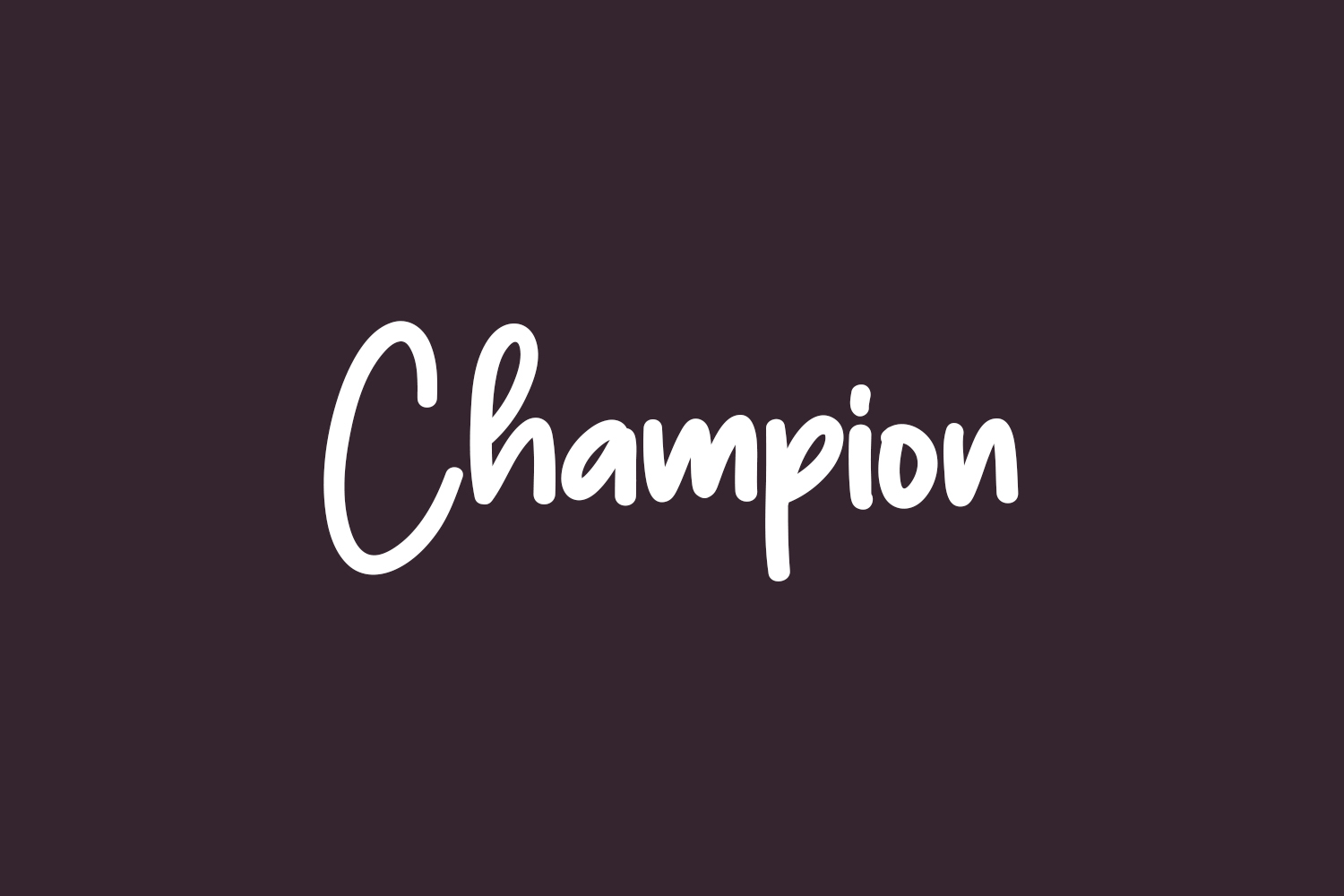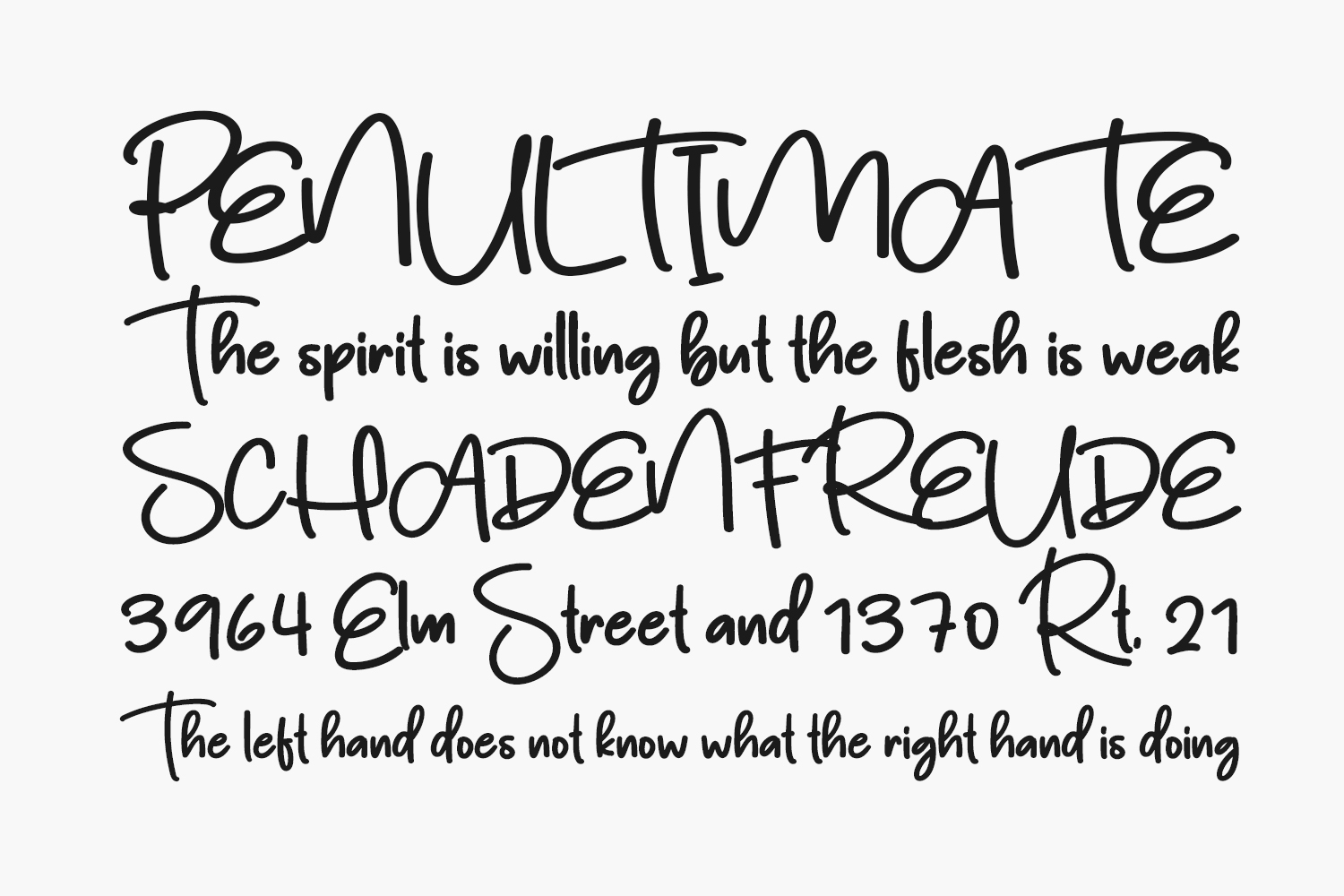
Champion Free Font, an exquisite and refined handwritten font, exudes a delicate charm. The impeccable balance and unique letterforms of this font elevate it to a level of artistic mastery. Discover its remarkable versatility and let it inspire you to craft awe-inspiring designs. Champion Free Font is free for personal use only. Please purchase the full version for commercial use.
Designed by Scratchones